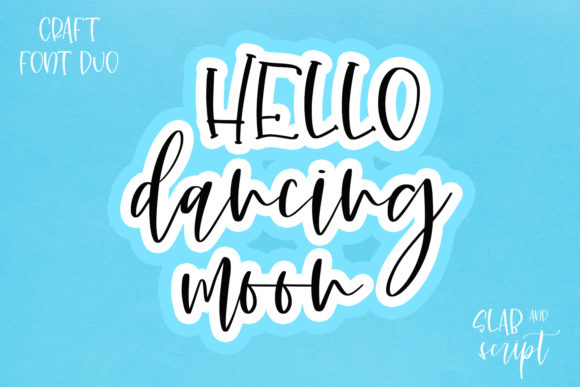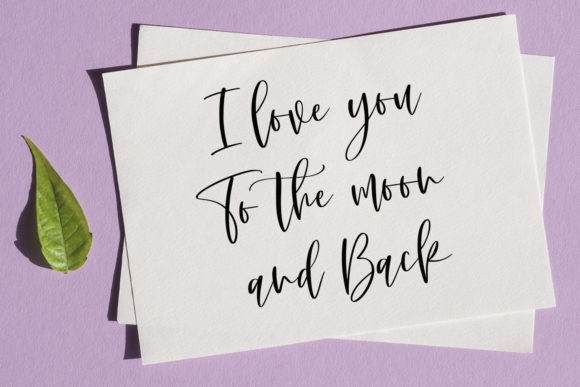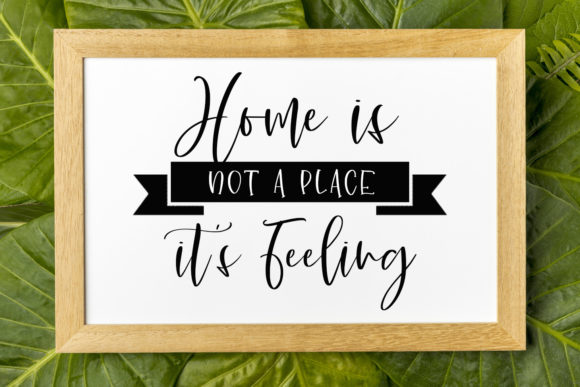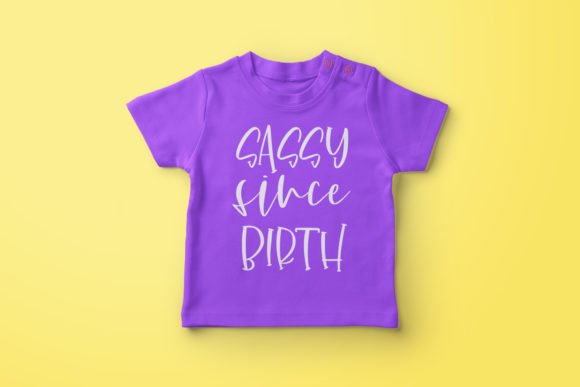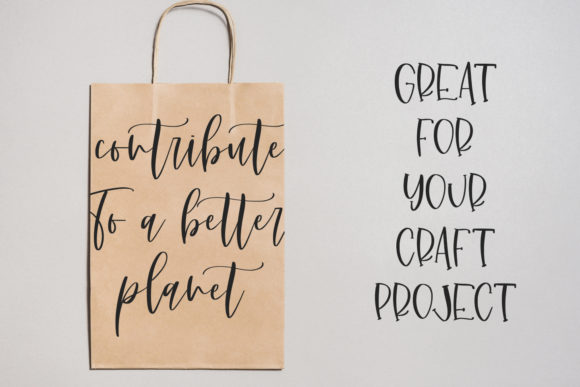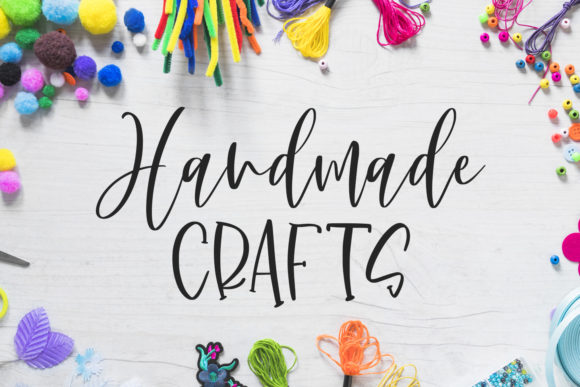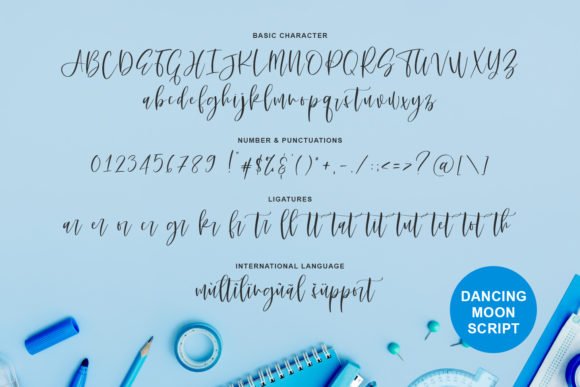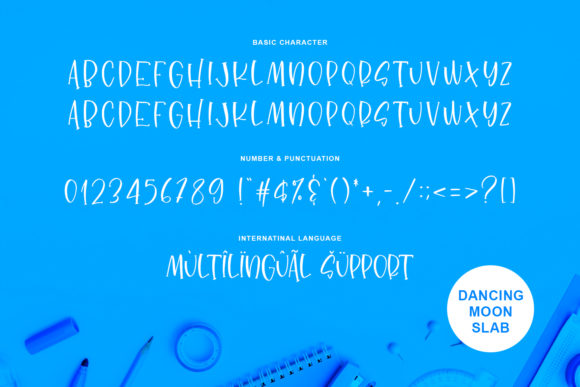
Dancing Moon Duo Font
About Dancing Moon Duo Font
Dancing Moon duo font is a great handwritten font. It combines a cute script with a strong slab serif. This versatility means that this font can be used in a wide variety of applications from logos, to social media posts- the only limit is your imagination!